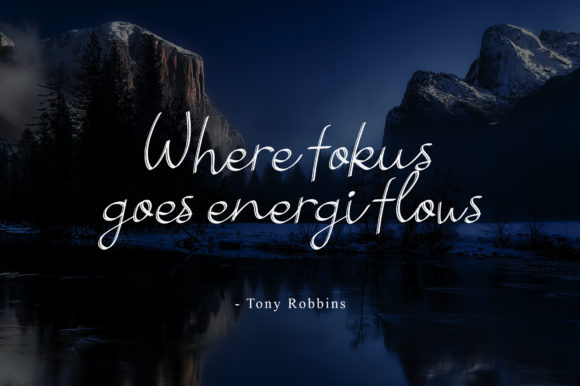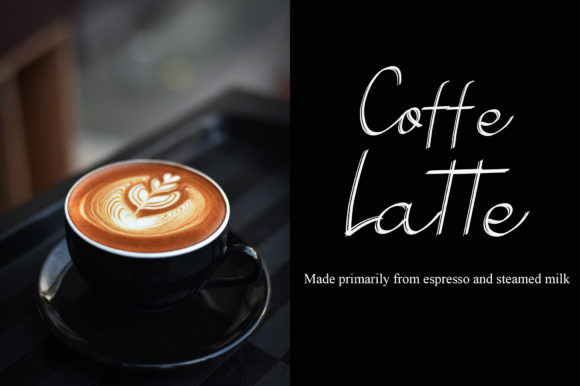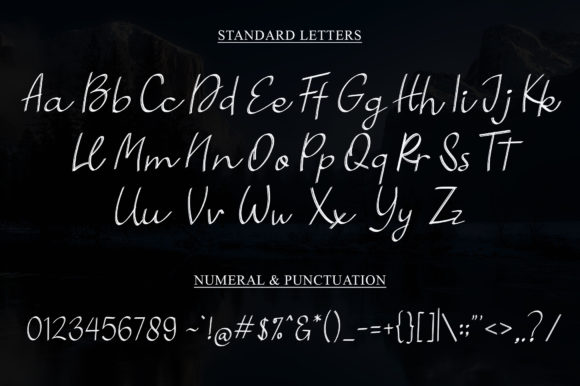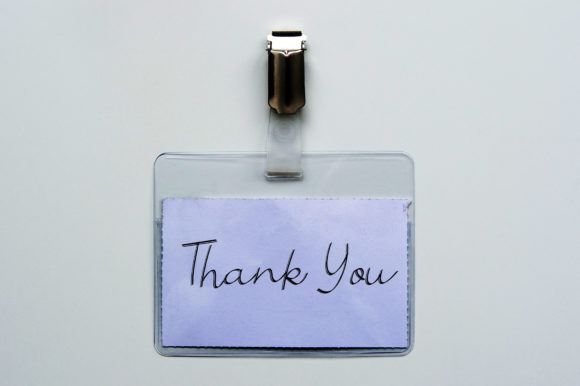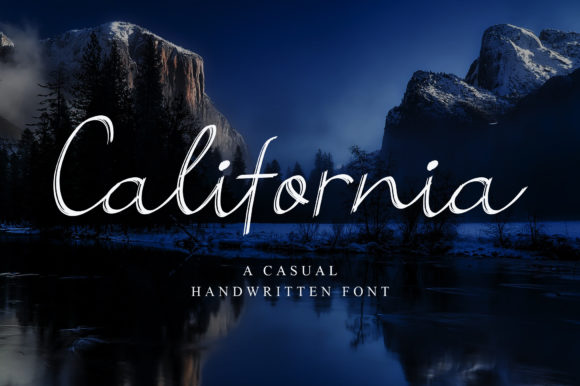
The California Font: A Timeless Beauty for Your Designs
I’ll never forget the moment I stumbled upon the California font. I was working on a branding project for a client who wanted a logo that exuded warmth, sophistication, and a touch of playfulness. I had spent hours scouring the internet for the perfect font, but nothing seemed quite right. That was until I discovered California – a lovely and timeless handwritten font that instantly captured the essence of my client’s vision.
A Personal Review: What I Love About California Font
So, what makes California font so special? Here are a few things that I absolutely love:
- ✨ Unique and beautiful touch: Every letter has its own distinct character, making it perfect for creating eye-catching logos and branding materials.
- ✅ Versatile: California font works beautifully for quotes, social media graphics, and even craft projects.
- 💫 Handwritten charm: The font’s handwritten quality adds a touch of warmth and personality to any design.
While California font is an amazing addition to any design project, there are a few quirks to be aware of:
- 🤔 Limited use in very formal or corporate designs: California font is best suited for creative, playful, or personal projects.
- ⚠️ May not work well in small sizes: The font’s handwritten quality can get lost in very small sizes, so it’s best used in larger text or headings.
The Backstory Behind California Font
California font was designed with the intention of capturing the warmth and playfulness of handwritten text. The designer, inspired by the laid-back vibe of California’s coastline, aimed to create a font that felt approachable, yet sophisticated. The result is a timeless beauty that adds a touch of personality to any design project.
| Is California font suitable for body text? | While California font is beautiful, it’s best used in headings or titles. For body text, a more readable font might be a better choice. |